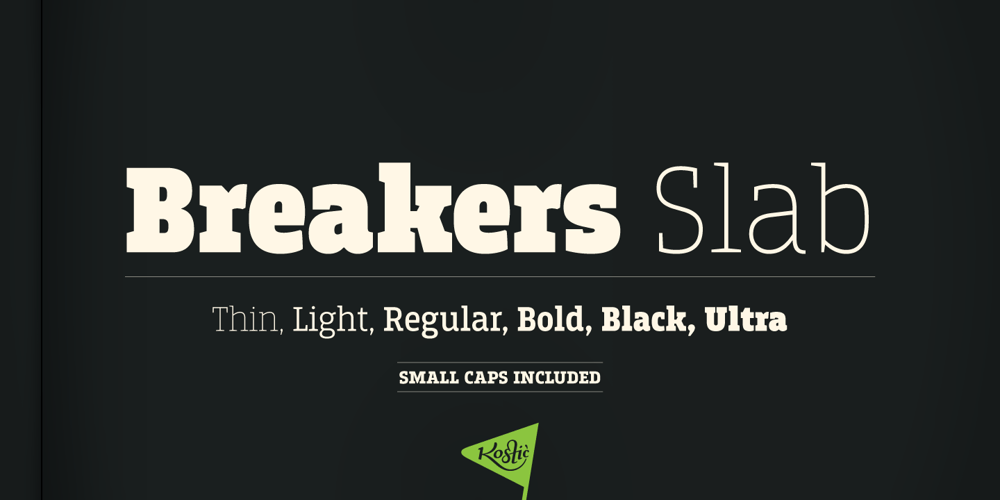
Breakers Slab
Breakers Slab font
Breakers Slab Font Family was designed by Nikola Kostić and published by Kostic. Breakers Slab contains 6 styles and family package options. Breakers Slab is a companion to sans serif Breakers. It’s a versatile typeface that is strong in headlines and legible in text, with a range of distinct weights from delicate thin to chunky ultra. With small caps included and over 600 glyphs in each weight. Breakers Slab has a character set to support Western and Central European languages, and an extended set for monetary symbols. Each weight includes small caps, ligatures, proportional lining and oldstyle numbers, tabular figures, fractions and scientific superior/inferior figures.